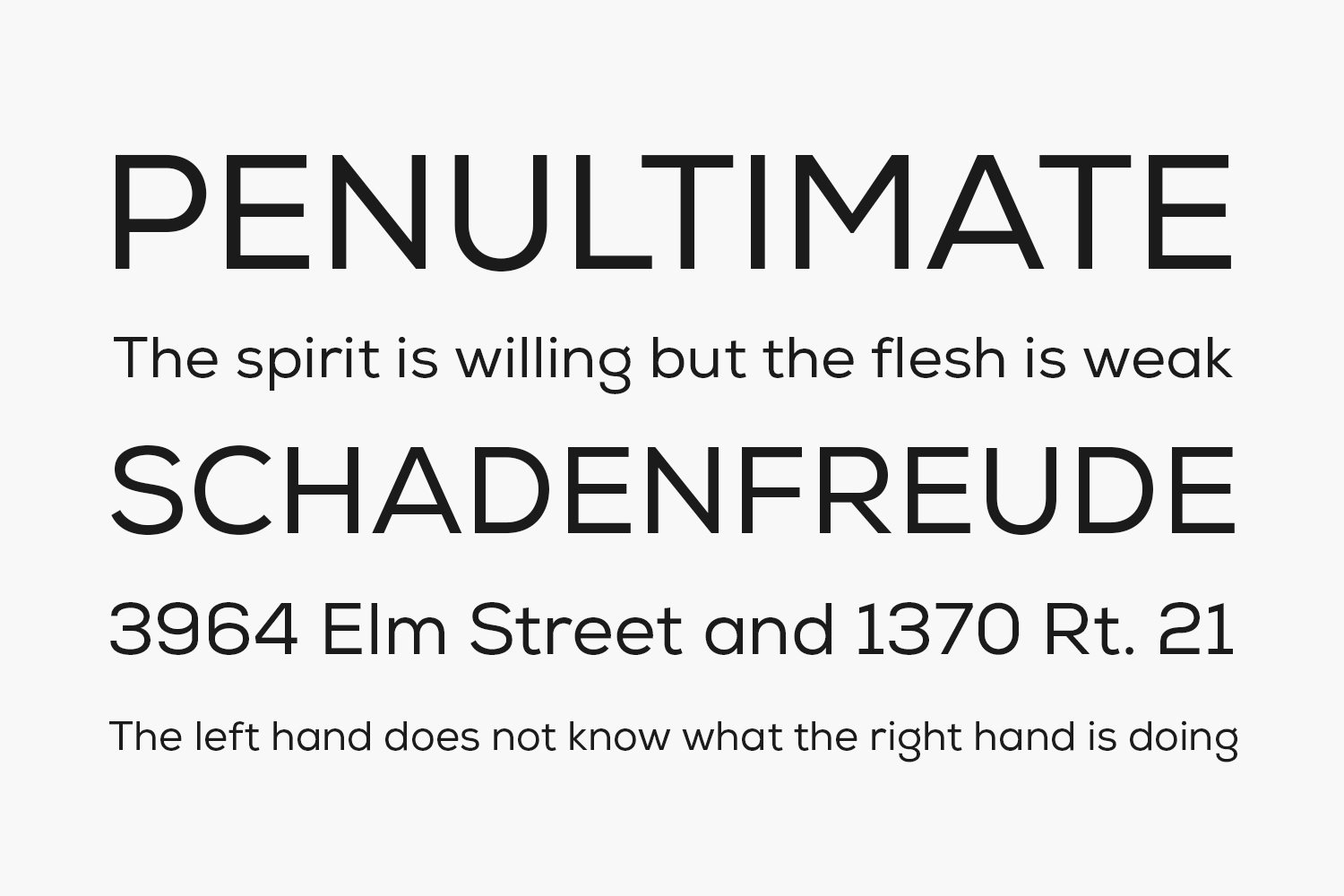
Nexa Free Font Family is most suitable for headlines of all sizes, but it does well in a variety of text lengths as well. The fontís various styles give it the versatility necessary to meet any type of graphic design challenge.
Designed by Fontfabric